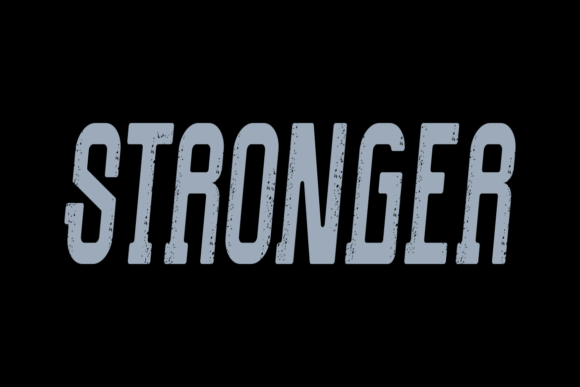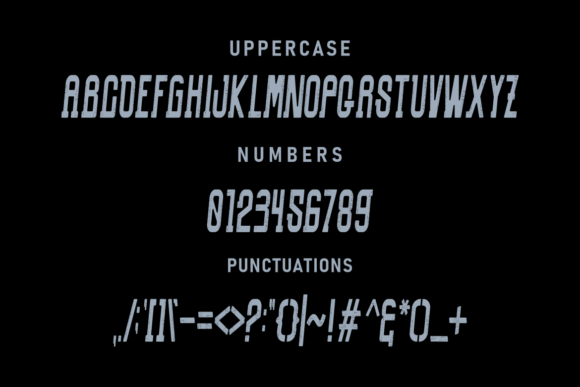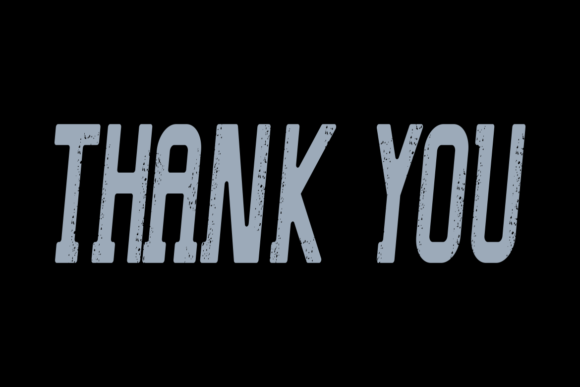
Introduction to Rabonnus Strong Font
Rabonnus Strong is a bold and assertive display font.
Versatile and incredibly stylish, this font is suitable for all your projects requiring daring typography .
Key Features of Rabonnus Strong Font